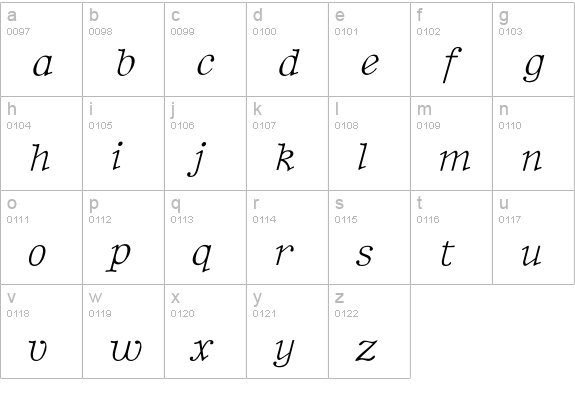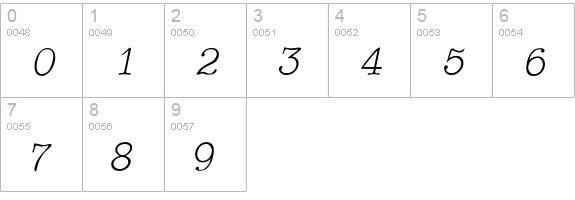
TypenradItalic Font Details
TypenradItalic is a visually captivating font that effortlessly combines elegance with a touch of modernity. With its sleek and slender letterforms, this font exudes a sense of sophistication and refinement. The slanted italic style adds a dynamic and energetic feel, making it perfect for designs that require a hint of playfulness. Featuring clean lines, perfectly balanced curves, and graceful strokes, TypenradItalic is a versatile typeface that lends itself well to a wide range of design projects. Whether used for editorial layouts, branding materials, or headlines, this font commands attention and leaves a lasting impression. One of the most remarkable aspects of TypenradItalic is that it is freely available to download at FontsMarket.com. This means that designers and creatives can easily access and utilize this stunning font without any cost. It offers them the freedom to experiment, explore, and create without any limitations. With its seamless legibility and refined style, TypenradItalic adds a touch of sophistication to any design. Its versatility, combined with the fact that it is freely accessible, makes it an invaluable resource for both professional designers and amateurs alike. Whether for personal or commercial use, this font is bound to elevate any project and make a lasting impact.